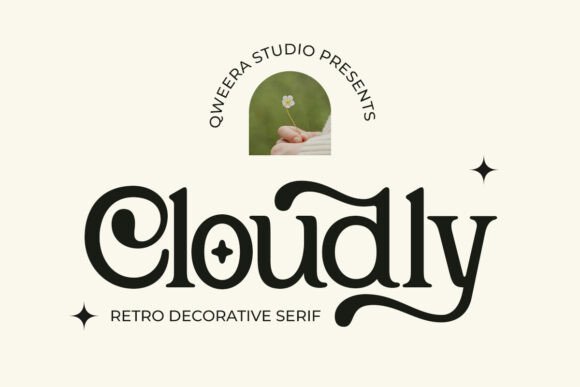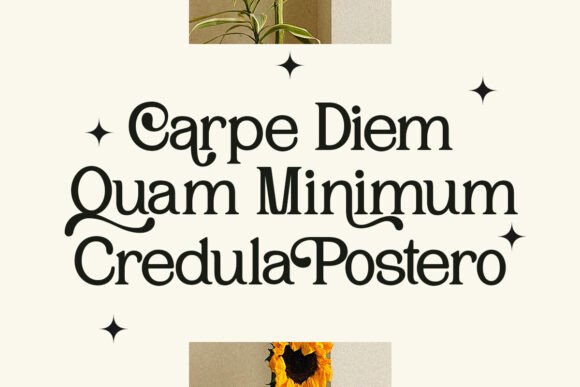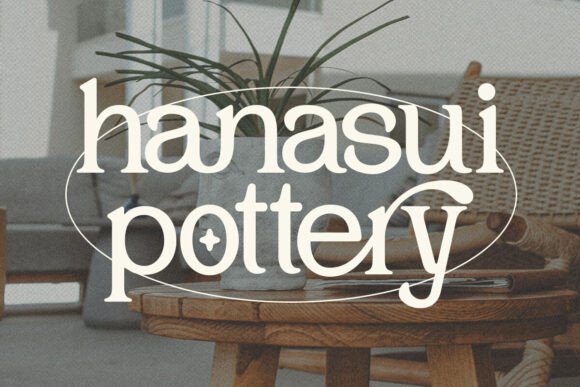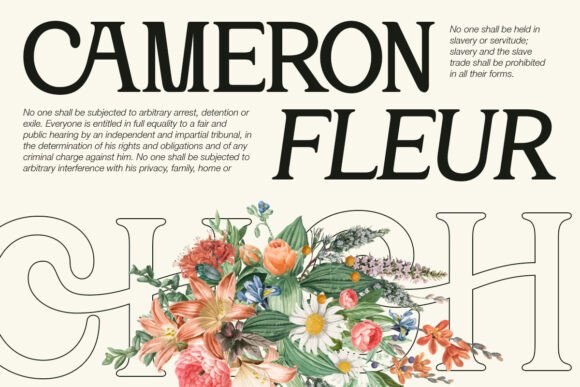
Cloudly Font: Retro Serif Typography for Bold & Stylish Logo Design
About the Cloudly Font
We are excited to introduce Cloudly Font, a must-have typeface for any serious designer. Cloudly Font – Retro Decorative Serif Typeface for Bold and Stylish Designs
Cloudly Font is more than just a typeface—it’s a bold and decorative serif font that combines retro charm with modern versatility. With its regular and italic versions, Cloudly offers creative flexibility through stylish alternates and ligatures, making it perfect for posters, magazines, branding, and print projects. Whether you’re crafting a vintage-inspired poster or designing a standout logo, Cloudly adds a unique, retro-modern touch to your artwork.
Where Retro Charm Meets Modern Creativity
Cloudly Font stands out with its decorative serif design and stylish features, offering endless creative possibilities. Its versatility makes it ideal for projects that demand a bold and artistic aesthetic, from editorial layouts to creative branding. This font isn’t just a tool—it’s a statement of creativity and individuality.
Elevate Your Designs with Cloudly Font
Cloudly Font isn’t just a typeface—it’s a tool to transform your creative projects into bold, retro-inspired masterpieces. Whether you’re designing for print, digital, or branding, this font ensures your work stands out with a unique and artistic flair.
Cloudly Font Usage Examples
Cloudly Font Example